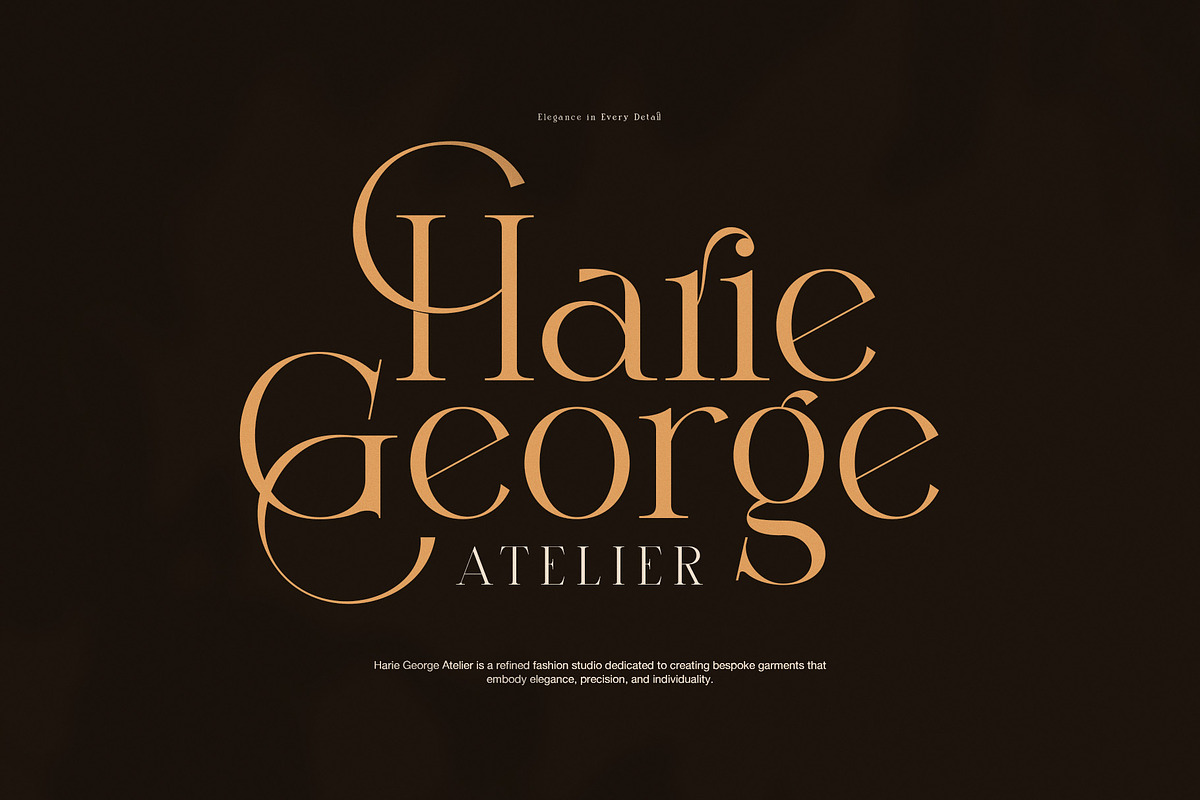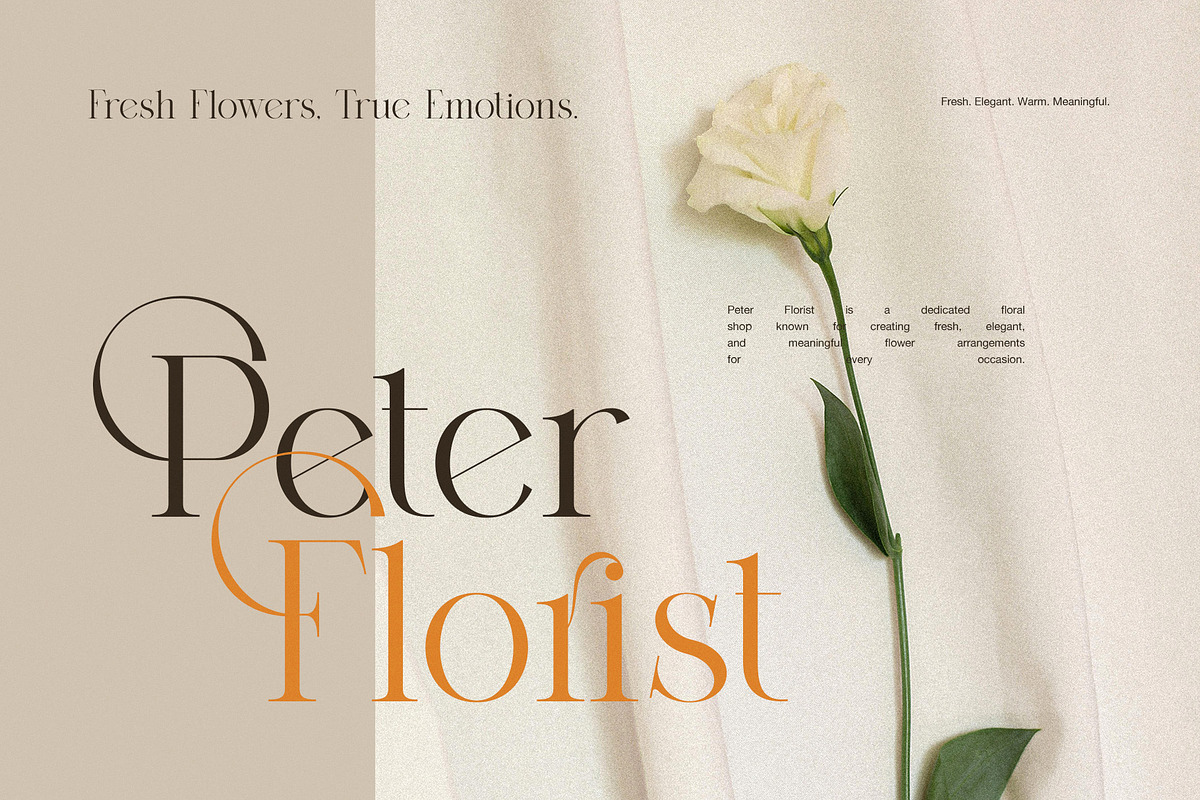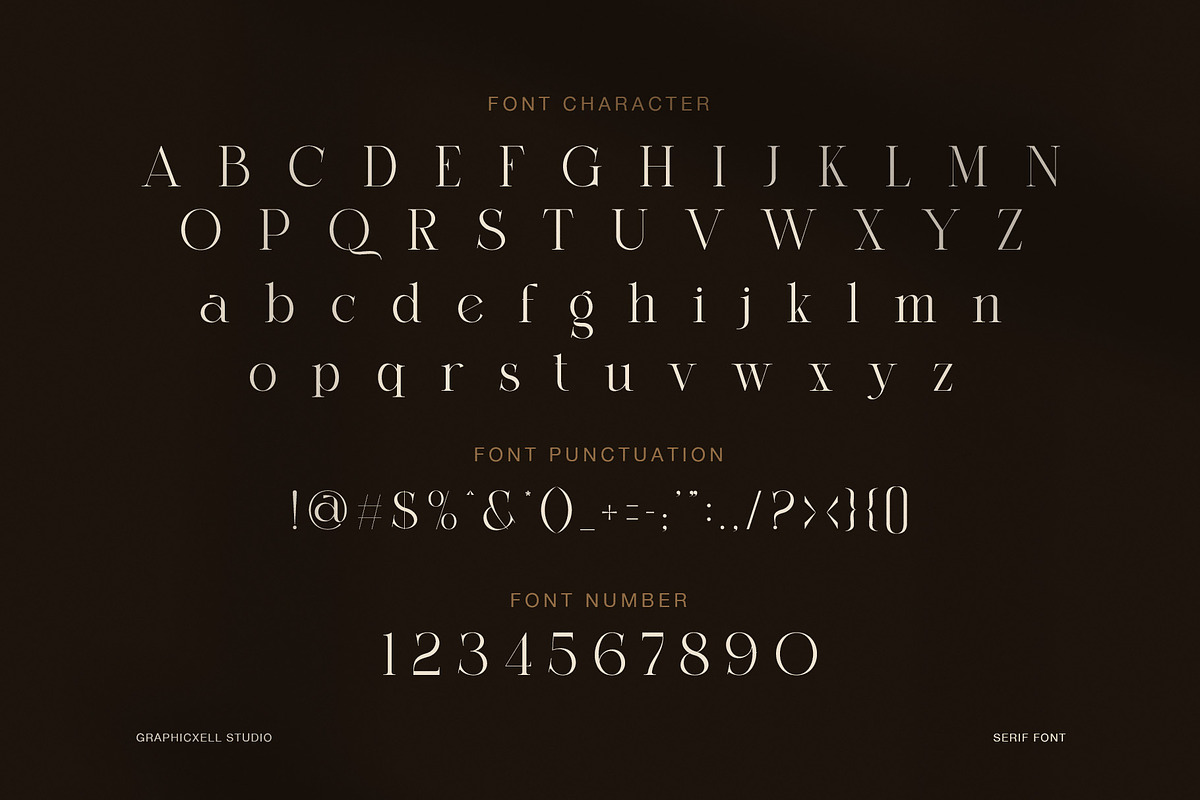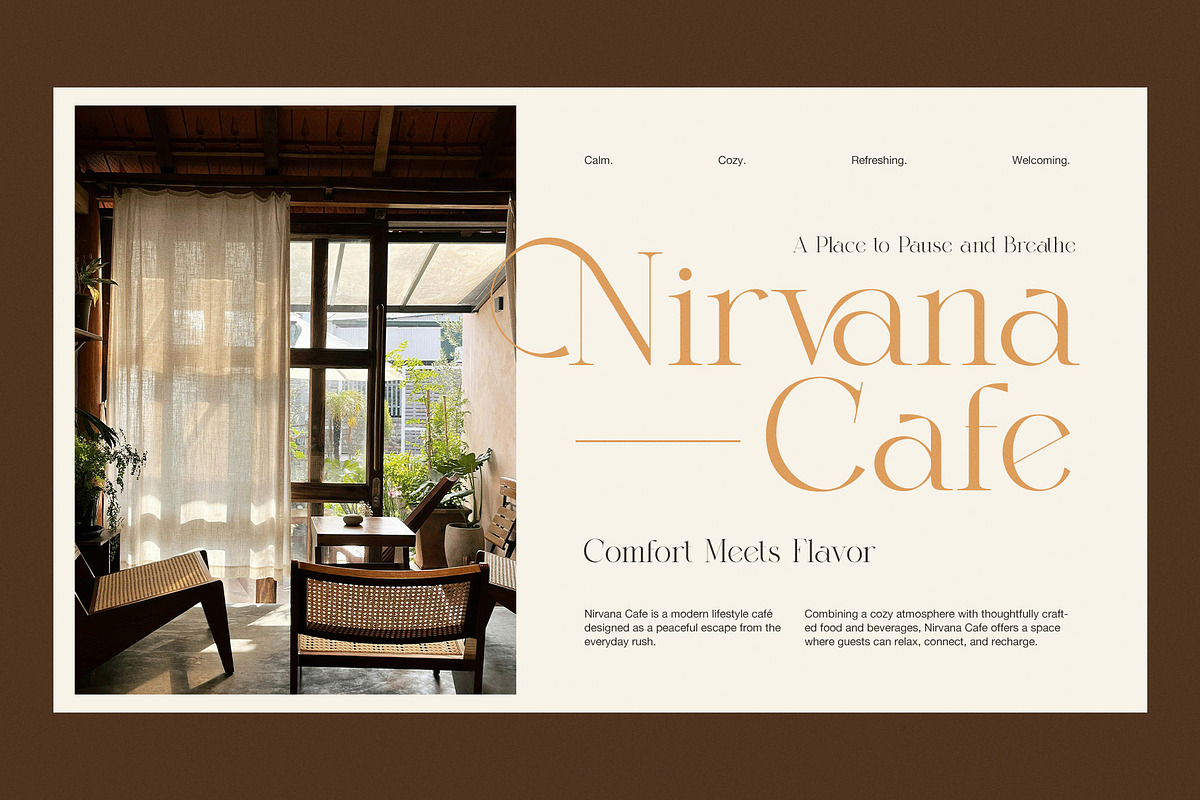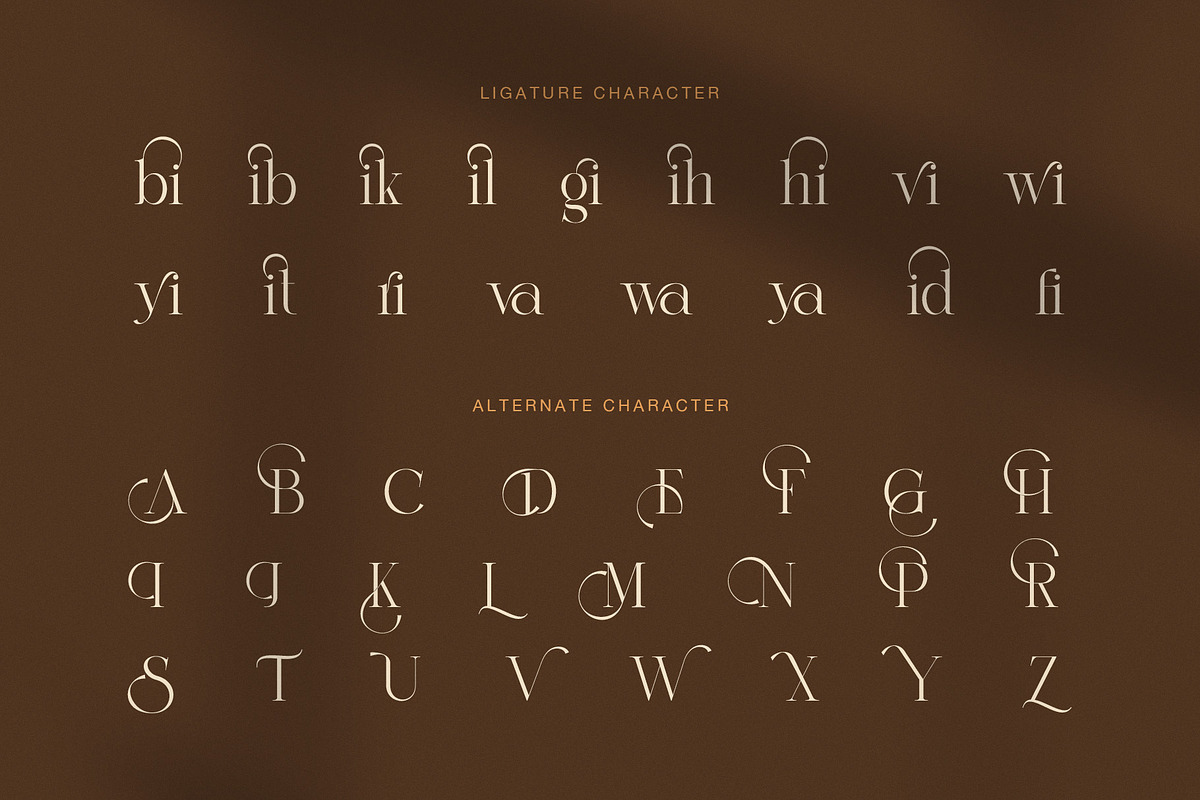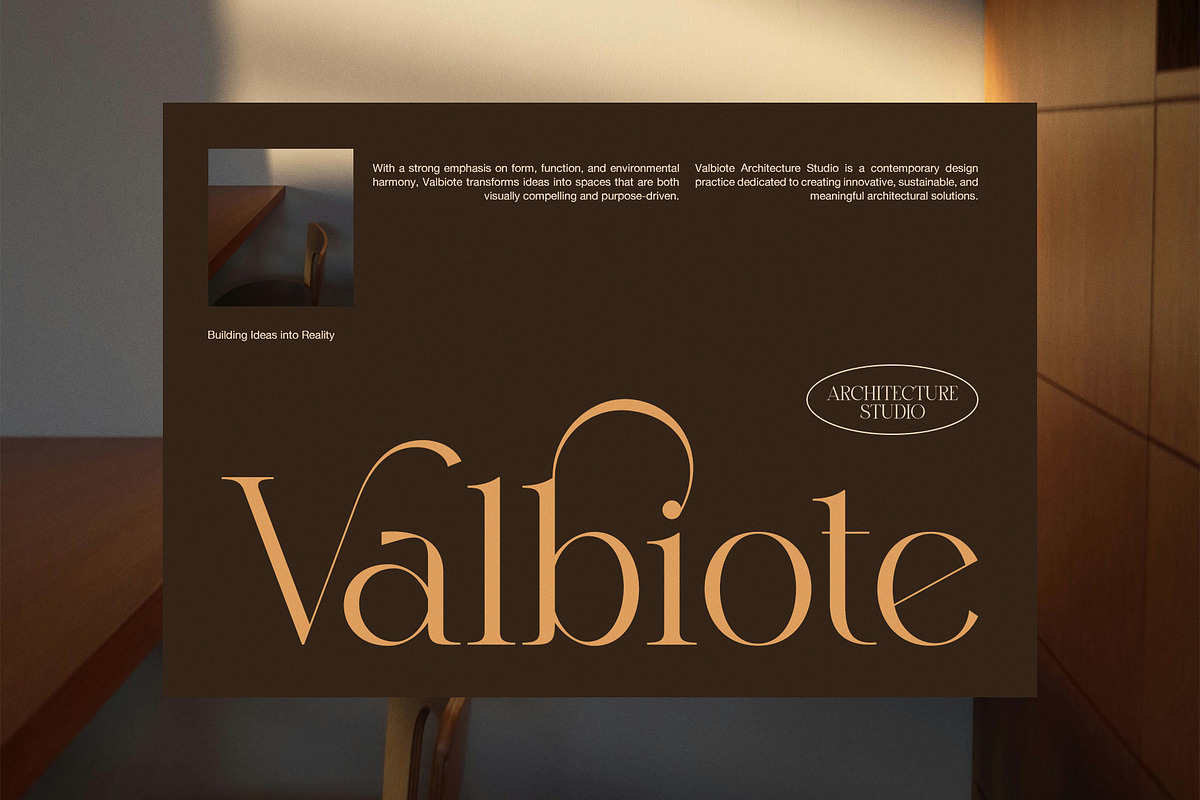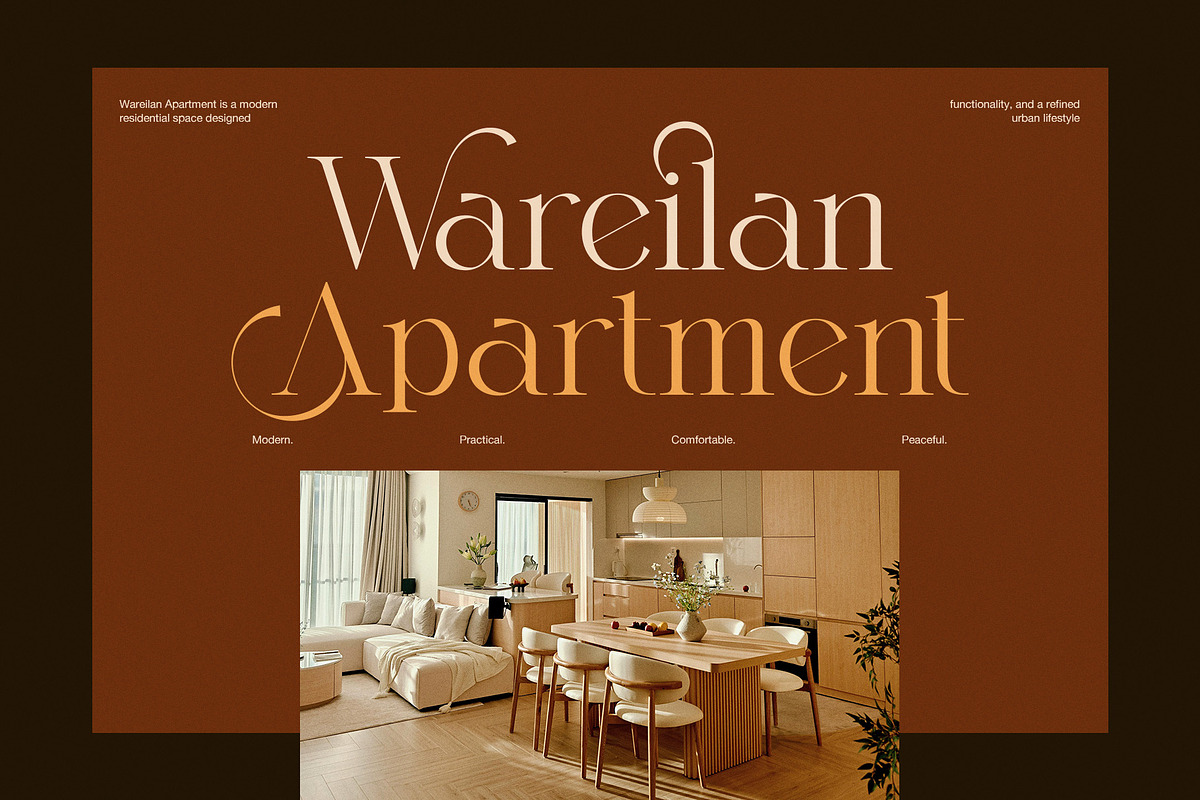
Amida Elegant Display Serif Font
Amida Elegant Display Serif Font is a refined and expressive serif typeface designed for modern luxury branding and editorial design. It combines high contrast strokes with smooth curves, creating a strong visual rhythm that feels both elegant and artistic. As a result, Amida stands out in fashion layouts, magazine headlines, and premium identity systems.
Furthermore, the font carries a balanced mix of classic serif structure and modern style. The letterforms are tall, stylish, and carefully shaped to give a sophisticated tone. In addition, the smooth transitions between thick and thin strokes make every word feel graceful and premium.
Moreover, Amida includes decorative alternates and stylish ligatures. These features help designers build unique logotypes without extra effort. Therefore, it becomes a powerful choice for branding projects that require exclusivity and personality.
As a result, Amida works perfectly in many design areas. It adapts well to both print and digital use. For example, it can elevate fashion editorials, boutique branding, wedding invitations, luxury packaging, and high-end social media posts.
Elegant high-contrast serif design
Stylish alternates for custom typography
Beautiful ligature characters for smooth connections
Fashion-inspired editorial style
Strong readability in large display use
Perfect for luxury and modern branding
However, what makes Amida special is its emotional tone. It does not only look decorative, but also communicates confidence and class. Therefore, it helps brands build a strong visual identity that feels timeless and memorable.
In addition, Amida pairs well with clean sans-serif fonts. This contrast creates a modern layout that feels professional and easy to read. Consequently, designers can use it for logos, headlines, posters, and website titles with consistent results.
Overall, Amida Elegant Display Serif Font is designed for creators who want beauty, balance, and impact in one typeface. It delivers elegance in every letter while maintaining a strong visual presence for luxury-focused design projects.